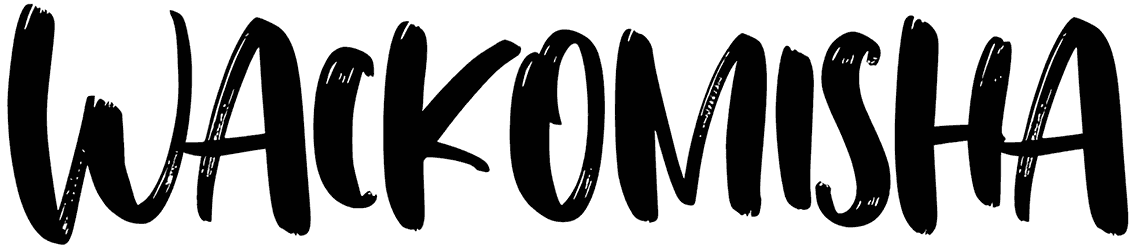
Wackomisha Font
Wackomisha font gives a cool and soft look to your texts and has a kind of look that you just can’t pass without doing a double-take. This tropical font has handwritten characters that have been styled in a way to start thick and end in a slightly bolder manner.
You can use it to write club signs, informal headlines, children’s puzzles, romantic movie titles, and summer event banners. This all-caps font resembles a paint-brush style with faded lines.